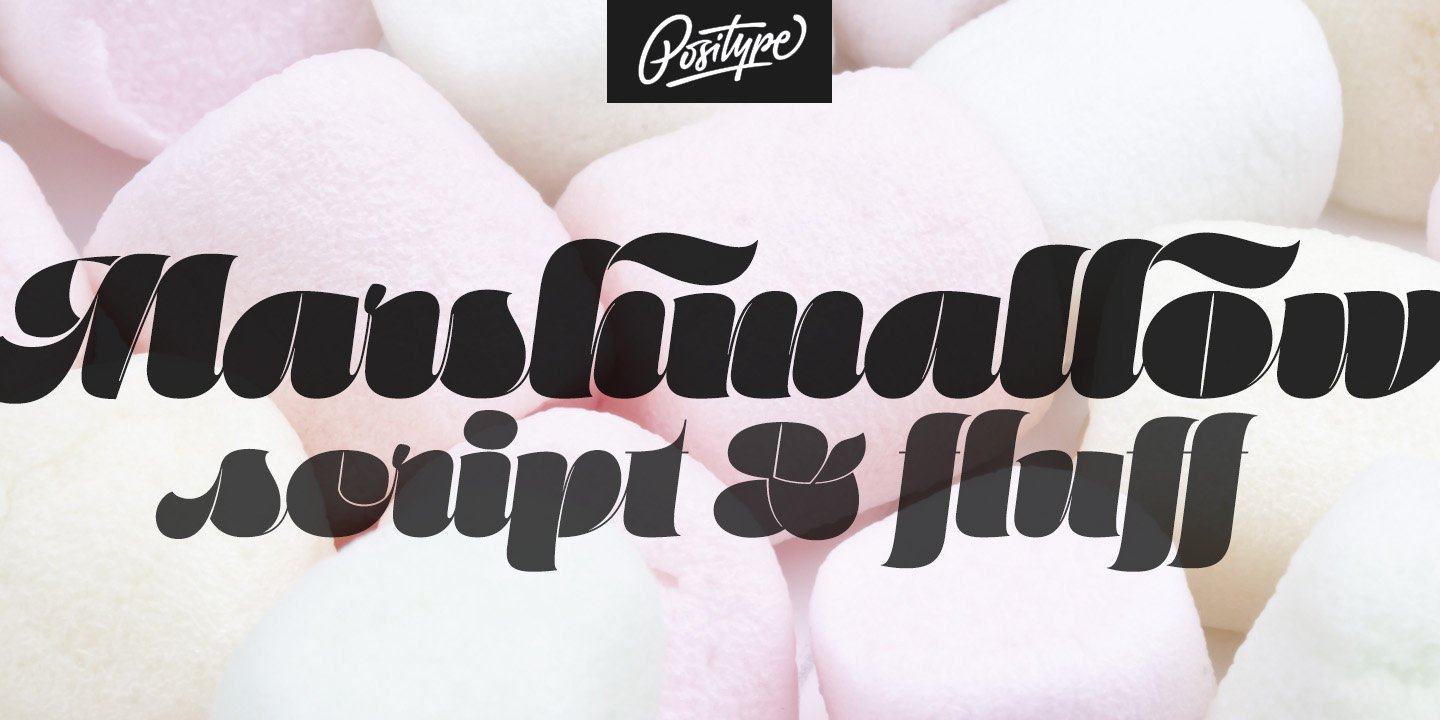
Marshmallow Font is ideal for sweet bakery branding, candy shop signage, children's party invitations, dessert café menus, confectionery packaging, soft toy company materials, dreamy nursery designs, sweet treats marketing, cozy café identity, comfort food restaurants, cloud-themed projects, and whimsical dessert campaigns. This delightfully soft typeface brings irresistible sweetness to projects requiring gentle charm and comforting appeal.
What makes Marshmallow Font so exciting is its extraordinary ability to capture the pillowy softness and innocent sweetness of marshmallows through adorably rounded letterforms that seem to float with cloud-like gentleness. The font features lovingly crafted characters with plump curves and tender proportions that mirror the squishy comfort and pure sweetness of fluffy marshmallows. Its comforting character conveys warmth and innocence while maintaining excellent readability, making it perfect for brands seeking to communicate sweetness, comfort, and the gentle joy of simple pleasures with authentic marshmallow softness.
The Marshmallow Font family includes multiple soft weights and fluffy variations that showcase its sweet character while providing comprehensive design flexibility for various confectionery and comfort-themed applications. Each variant maintains the original's pillowy softness while offering extensive options for creating delightfully sweet typographic compositions that celebrate comfort and innocent joy.
Whether you're developing sweet brand identities, creating confectionery marketing materials, or designing comfort-focused communications, Marshmallow Font Free Download offers the perfect combination of gentle sweetness and contemporary functionality. This exceptional typeface brings authentic marshmallow comfort to design projects, making it an indispensable choice for designers seeking typography that effectively communicates sweetness, comfort, and the irresistible charm of fluffy marshmallow softness with genuine tender appeal.